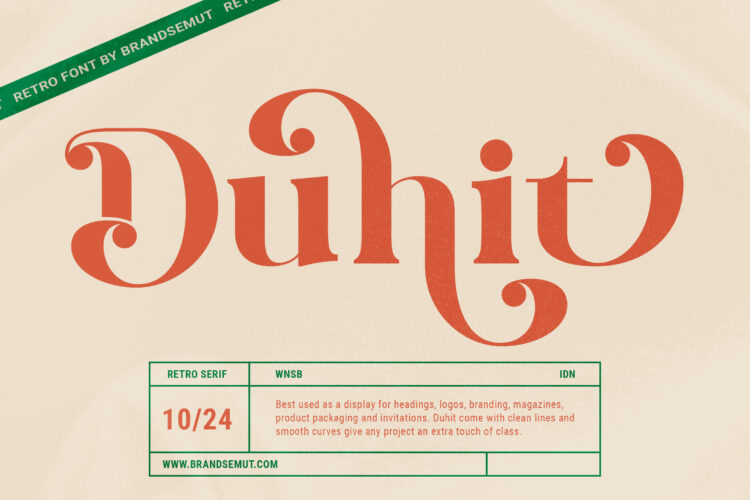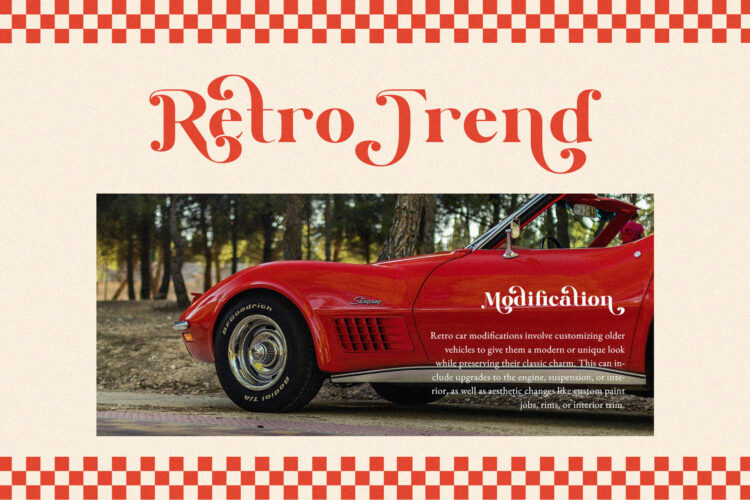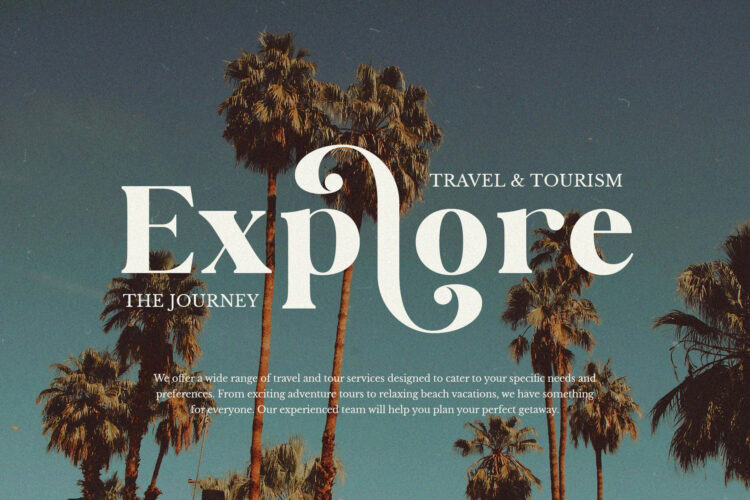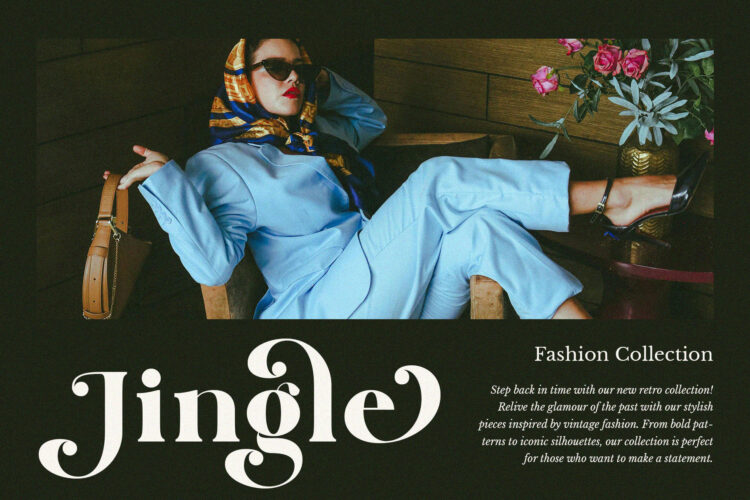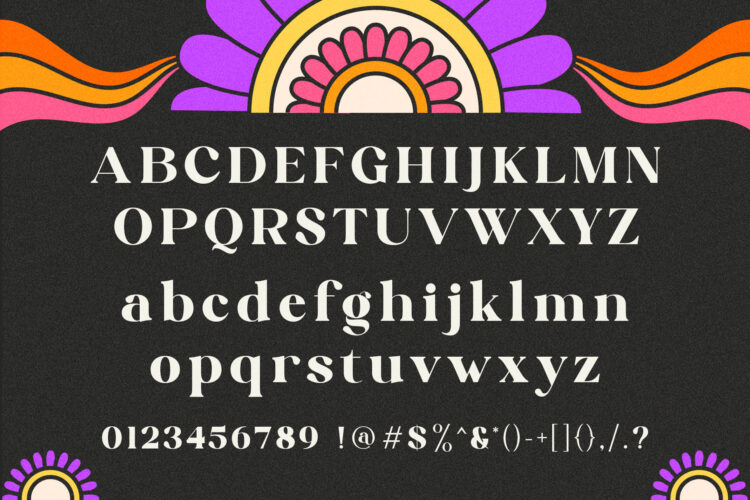
Introducing the new Duhit Retro Serif Font!! Duhit is a modern and retro serif font. Best used as a display for headings, logos, branding, magazines, product packaging and invitations. Duhit come with clean lines and smooth curves give any project an extra touch of class. For those of you who are needing a touch of classic, stylish, classy, retro and modernity for your designs, this font was created for you!
Duhit was built with Alternates, OpenType features and includes ligatures, numbers, punctuation, and it also supports other languages.